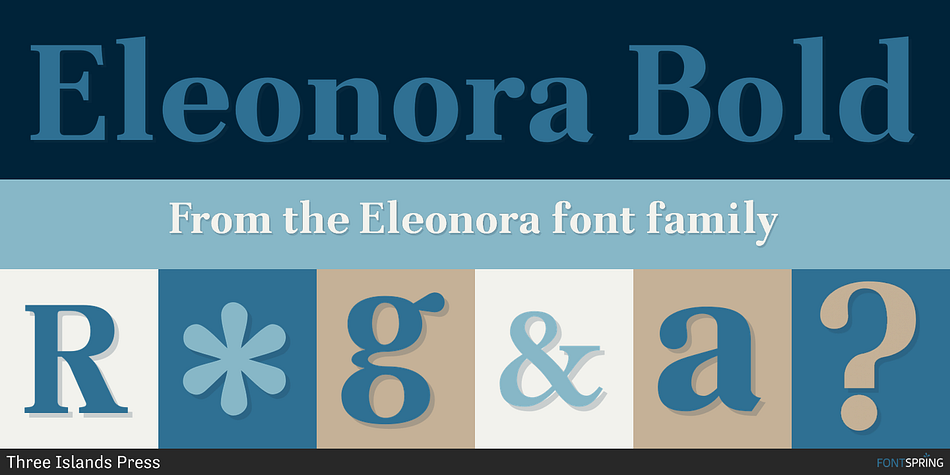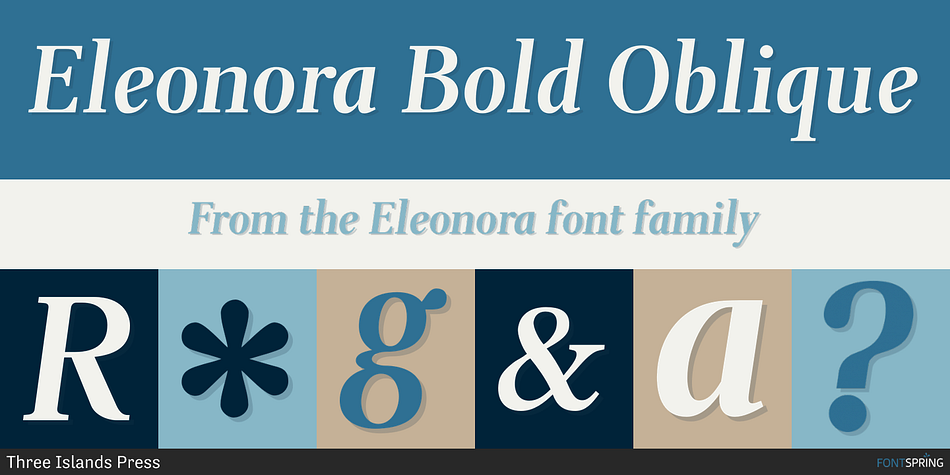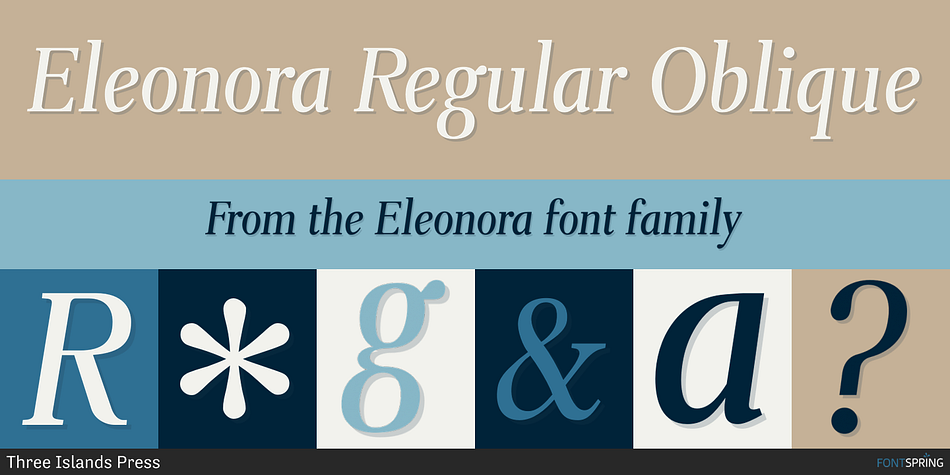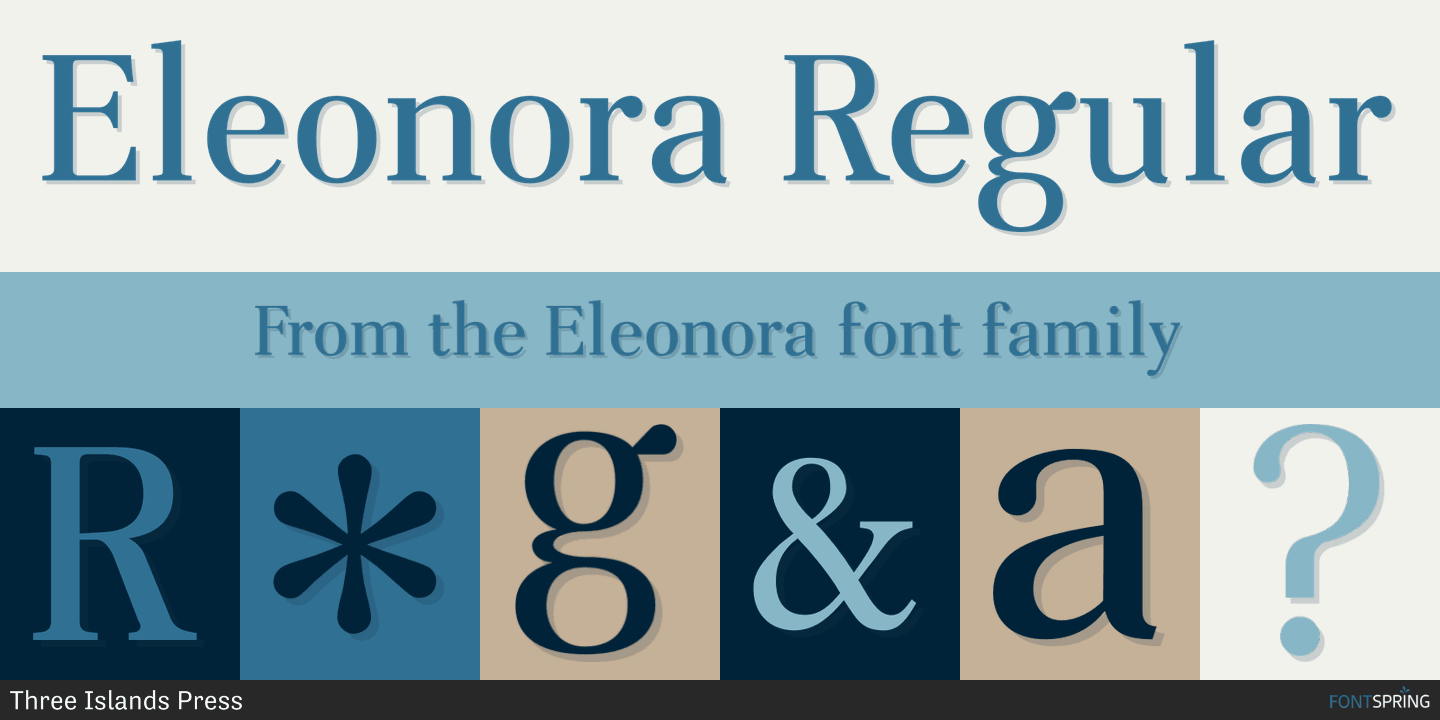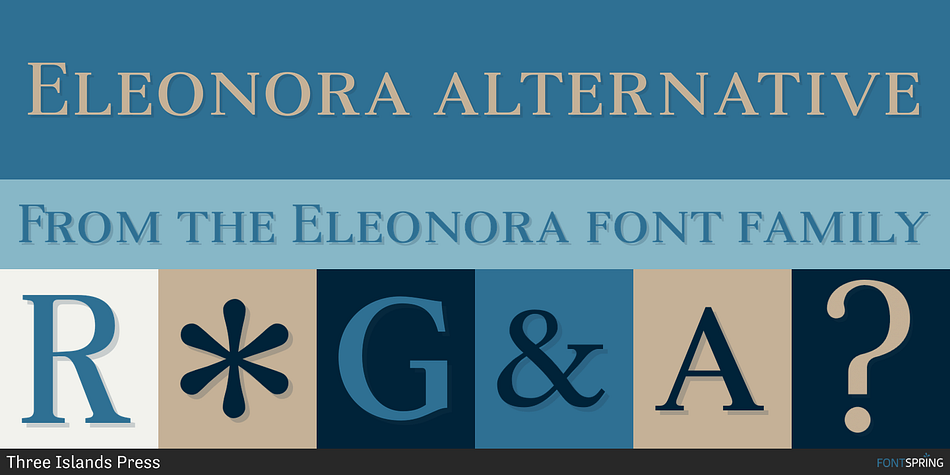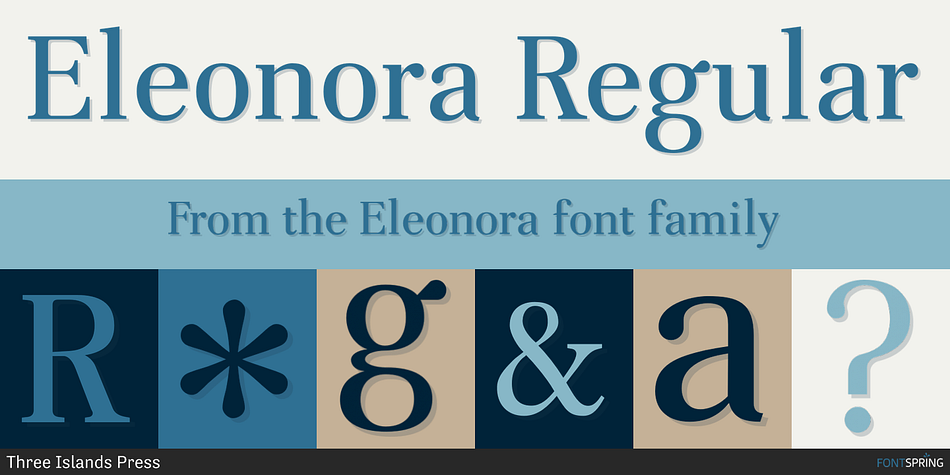
Eleonora is a serif and display serif font family. This typeface has five styles and was published by Three Islands Press.
Eleonora tends to defy standard categories. Had the typeface been designed in about 1790, it might’ve been called a “late transitional face” and lumped together with Bell and Bulmer. But it’s a modern typeface, showing more restraint in its finer details than even Baskerville. Also noteworthy: it has no traditional, script-like italic but a more severe oblique with baseline serifs and other roman features. Has regular, italic, bold, and bold italic styles.